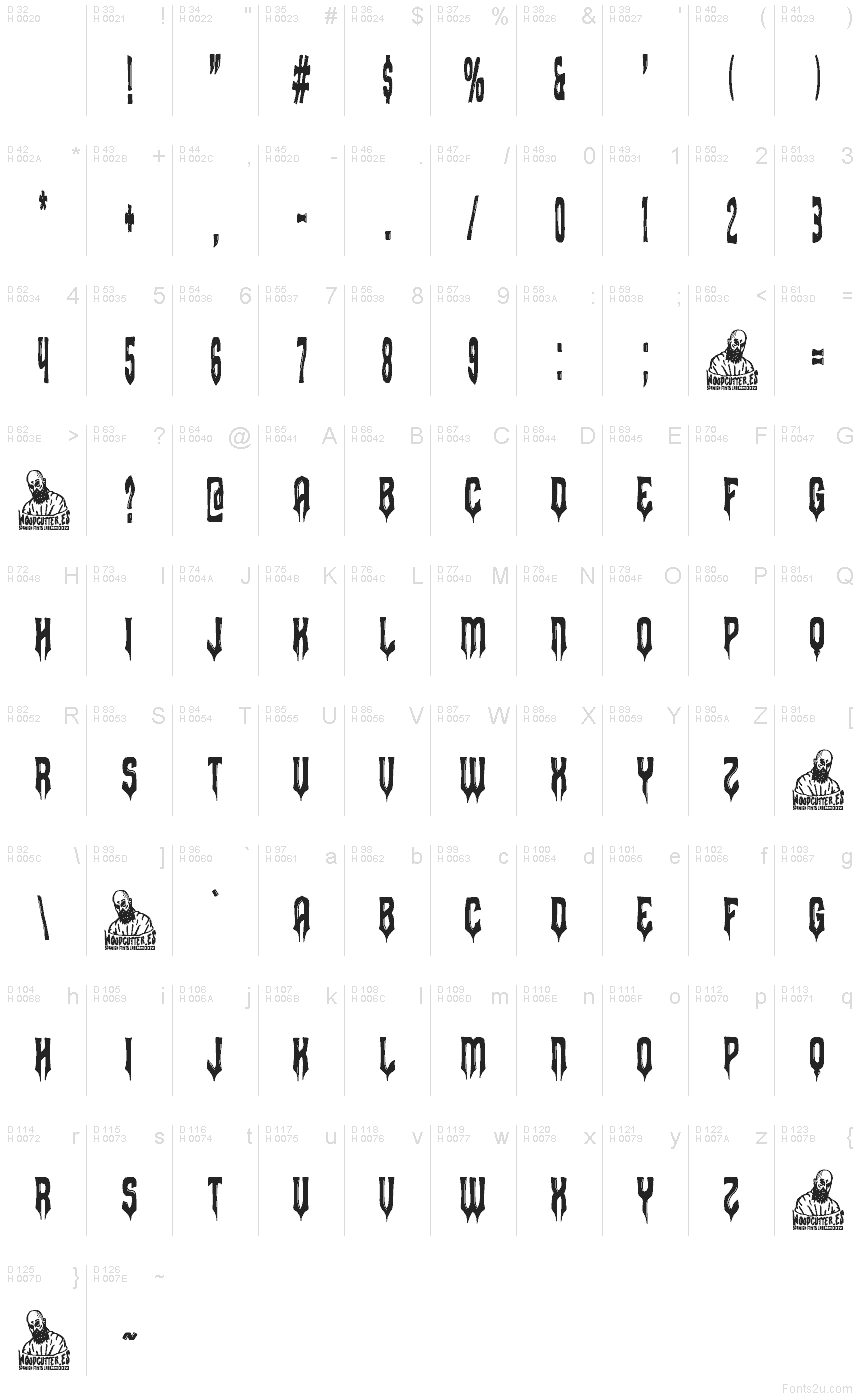
Steel Armor
Steel Armor font, designed by Woodcutter, captures the enchanting essence of gothic and modern styles. The condensed characters have a uniform height which is personalized by the extra elements which are thin at their ends and thicker in the middle. A curvy contour dominates its shape except for some rare places where sharpness is on display.
This intricate gothic font acts as any designer’s ally in brand designs related to metal bands, fine art galleries, tattoos, social media posts, or gaming visual identity. Steel Armor can also be used for fighting spirit enhancing posters that welcome sparring matches and animated opening scenes of cartoons that possibly take place in a time where armor suits are casually worn around every corner.